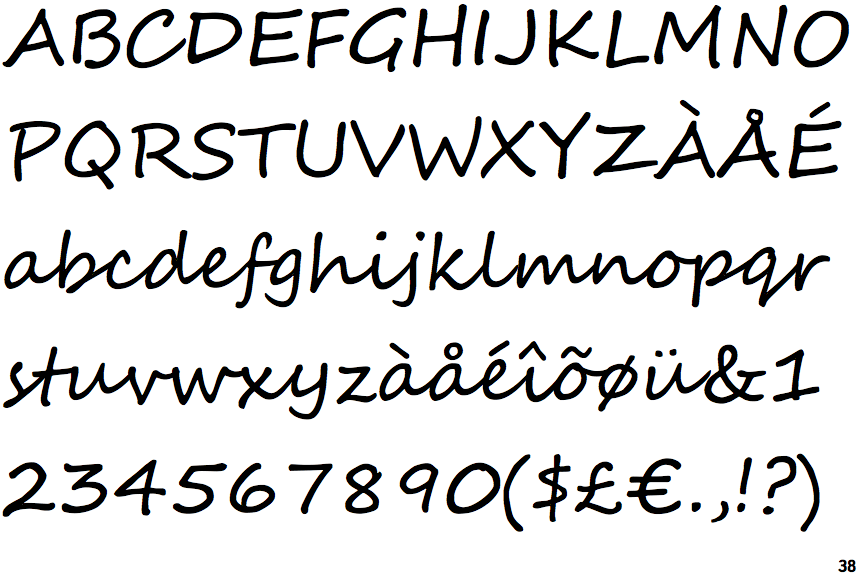
Designed by carl crossgrove based on the handwriting of brian allen. Font meme is a fonts & typography resource. Our 3d text style effects generator can also be used to animate your fonts. Every font is free to download! You can use the following tool to generate text graphics based on your selection of colors, text effects. The “ font collection ”. Use the text generator tool below to preview segoe script font. Segoe font generator, free text conversion online, no watermark, works for both windows and mac. Create text graphics with script fonts. Segoe™ script is part of the segoe family of fonts from microsoft.
Font meme is a fonts & typography resource. You can use the following tool to generate text graphics based on your selection of colors, text effects. Use the text generator tool below to preview segoe script font. The “ font collection ”. Segoe™ script is part of the segoe family of fonts from microsoft. Designed by carl crossgrove based on the handwriting of brian allen. Every font is free to download! Segoe font generator, free text conversion online, no watermark, works for both windows and mac. Expand your business with our cool and unique font generator! Click to find the best 5 free fonts in the segoe style.